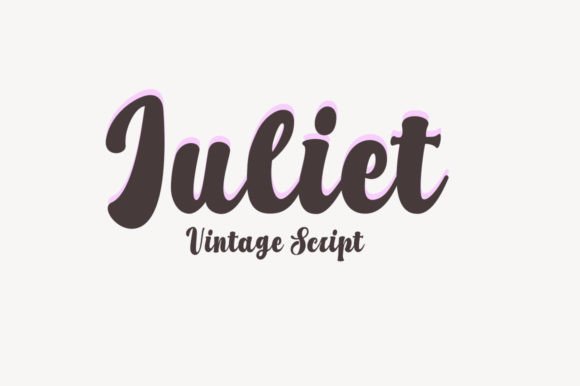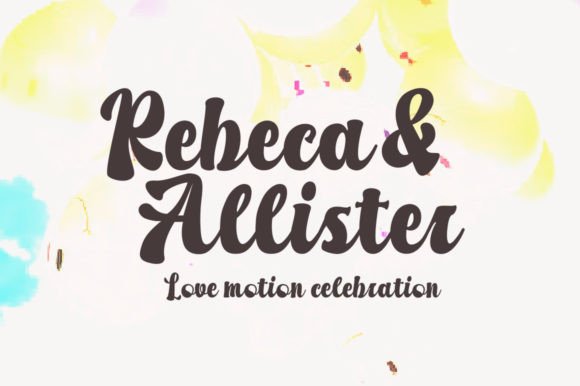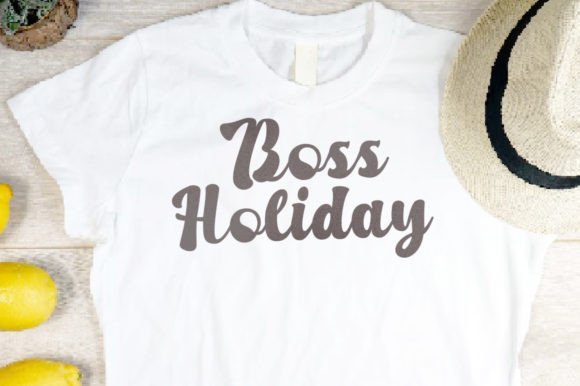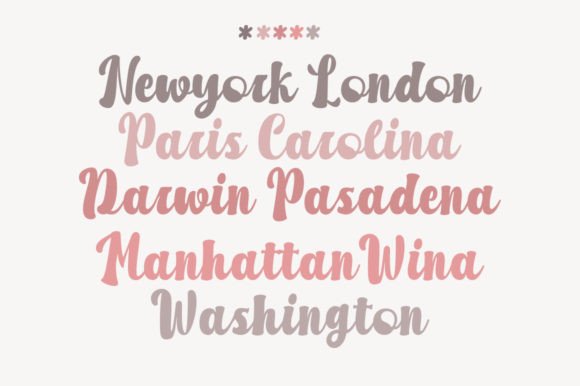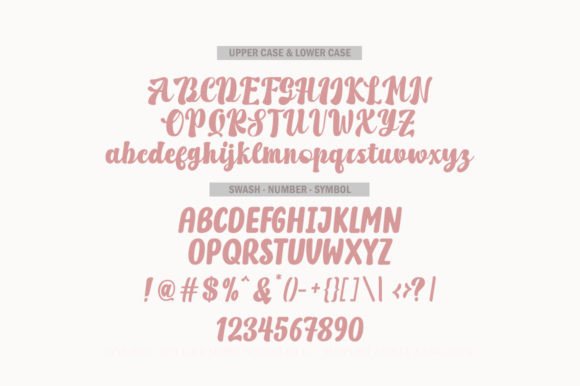
A Unique Script Font with a Rough Appeal
Juliet Font is a unique script typeface that stands out with its firmer and rougher design. Its distinctive style is perfect for projects that require a bold, eye-catching aesthetic. Whether you’re designing cards, covers, stickers, or crafts, this font adds a personalized and edgy touch to your work, making it ideal for a wide range of creative projects, from New Year celebrations to product packaging.
Perfect for Card Designs and Invitations
For card designs and invitations, the Juliet Font provides the perfect mix of elegance and boldness. Whether you’re designing greeting cards, wedding invitations, or holiday greetings, this font adds a unique flair to your designs. Its rougher appeal ensures that your cards stand out, making them memorable and full of character. The font’s distinctive strokes provide a stylish, contemporary twist to your invitations, making them perfect for any occasion.
Ideal for Stickers and Crafts
The Juliet Font is also perfect for stickers and craft projects. Its bold and rough design ensures that your stickers make a statement, whether for personal projects, decor, or product labels. If you’re designing crafts or custom gift tags, this font helps add a unique and creative touch that makes your creations stand out. Its easy-to-cut design makes it an ideal choice for vinyl stickers and other DIY crafts.
Great for New Year Projects and Celebrations
For New Year projects, the Juliet Font brings a festive and bold style to your designs. Whether you’re creating party invitations, decor, or gifts, this font adds a celebratory and fun touch to your designs. Its distinct and rough appearance makes it perfect for any holiday-themed project that needs to feel both elegant and playful. Let the Juliet Font enhance your New Year designs with a memorable, eye-catching style that reflects the excitement of the season.
Ideal for Product Packaging and Covers
For product packaging and covers, the Juliet Font adds a unique, creative touch that ensures your products stand out. Whether you’re designing for food packaging, apparel, or gift boxes, this font adds personality and boldness to your product design. Its rough edges and strong character make it perfect for modern brands that want to make a statement while maintaining readability and clarity.
Fun, Legible, and Versatile
Despite its rougher script design, the Juliet Font remains legible and easy to use. Its consistent strokes ensure that your text is clear and easy to read, even at smaller sizes or for longer text blocks. Whether you’re using it for headlines, captions, or body text, this font provides the perfect balance of creativity and legibility, making it suitable for a wide range of design applications.
Add Boldness and Character to Your Designs with Juliet Font
If you’re looking for a unique, bold, and rough script font to enhance your designs, the Juliet Font is the perfect choice. Whether you’re working on card designs, stickers, product packaging, or New Year projects, this font brings a fun, memorable touch to your work. Let the Juliet Font help you create spectacular, one-of-a-kind designs that leave a lasting impression.